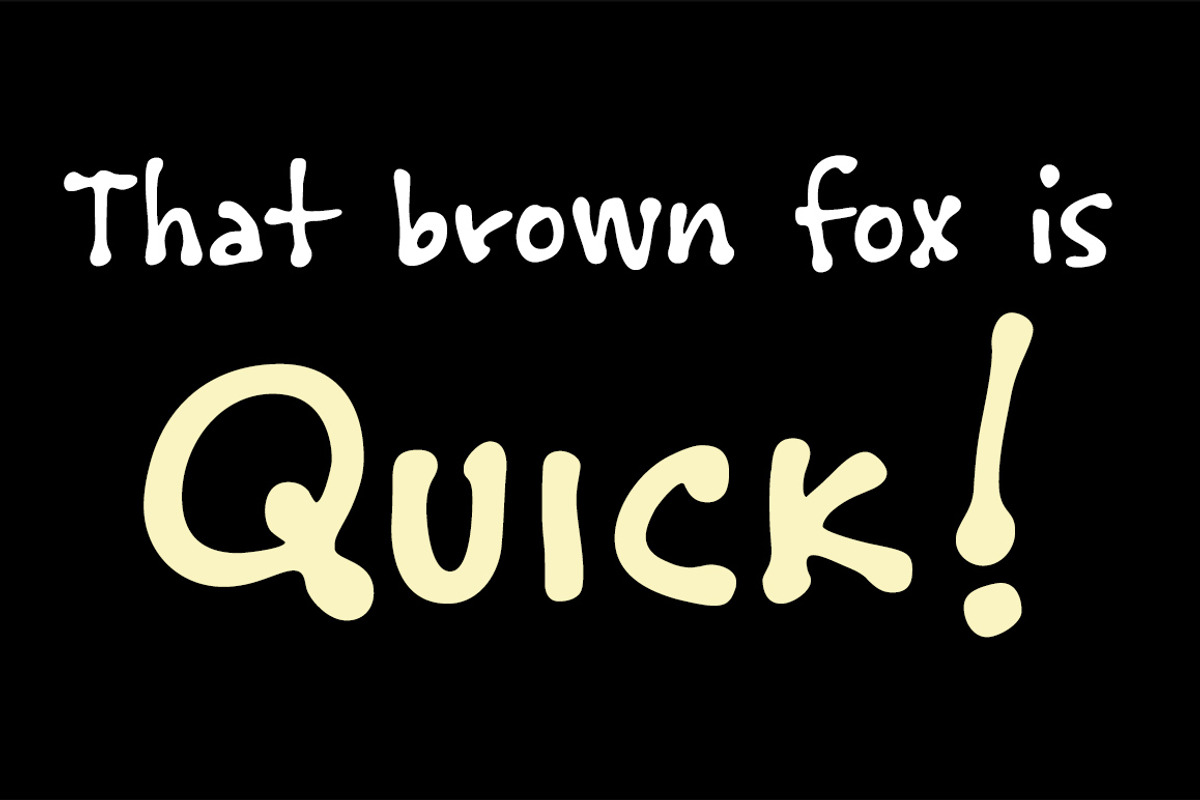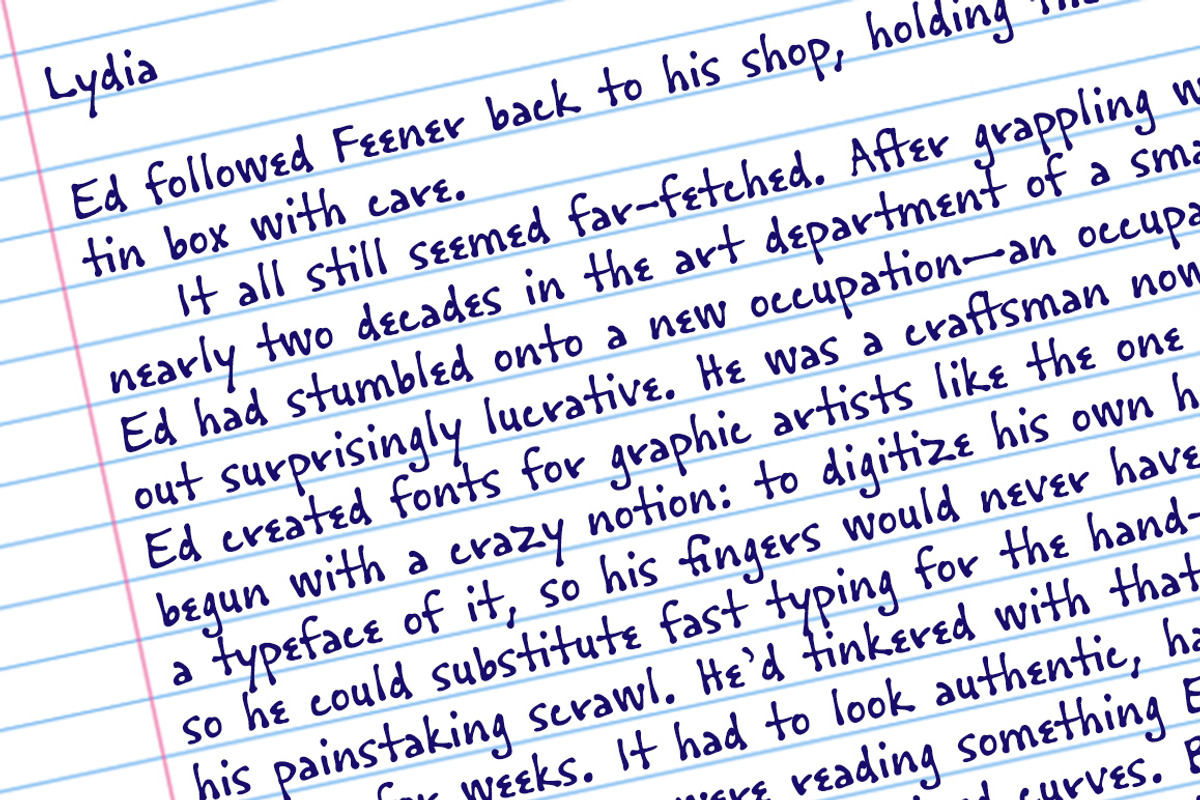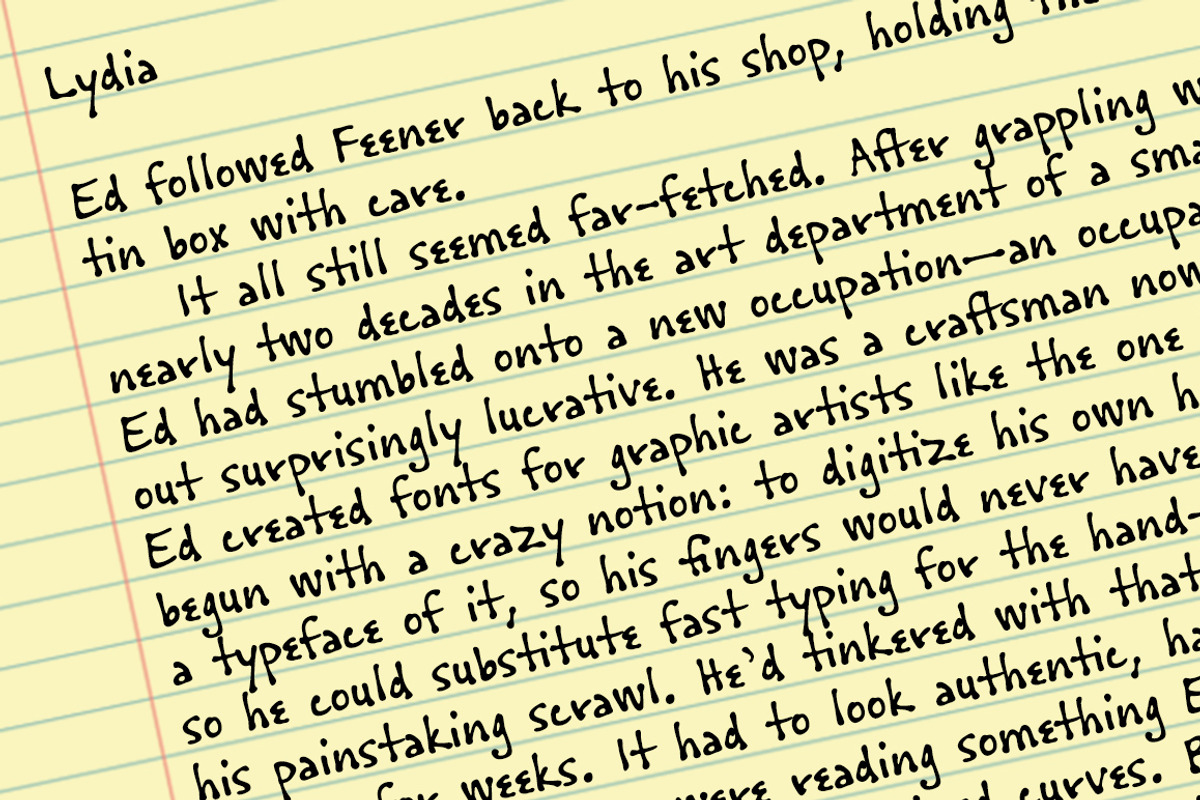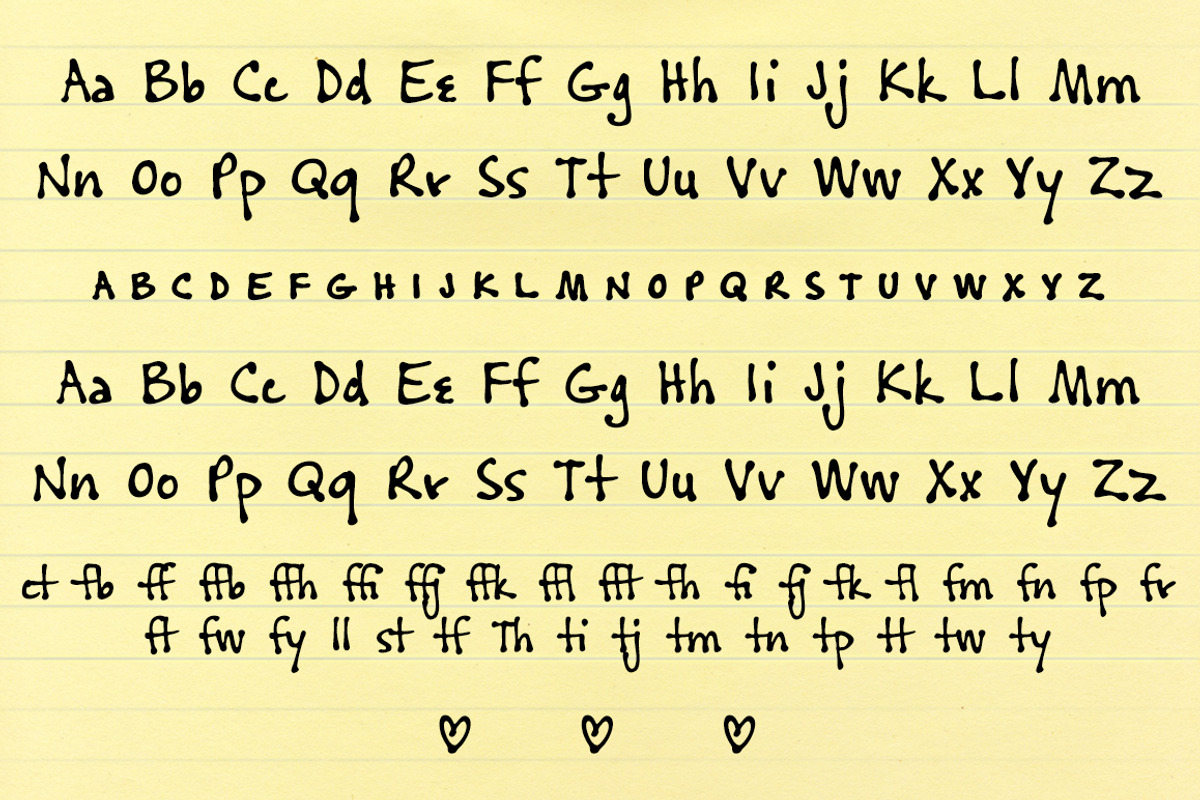
Cedar Street, a font fit for a notepad
Cedar Street, a font fit for a notepad by Three Islands Press is a font selected for branding, posters, packaging, typography.
- Has a single medium weight with a thorough character set—more than 650 glyphs in all—including true small caps, numerous ligatures, and Cent
Why Cedar Street, a font fit for a notepad is worth a look
Cedar Street, a font fit for a notepad by Three Islands Press fits naturally into Branding, posters, packaging, typography.